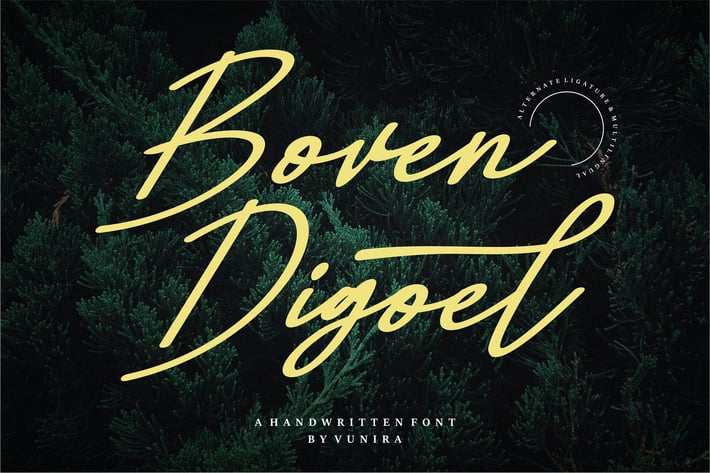
Boven Digoel | A Handwritten Font
Boven Digoel | A Handwritten Font with a calligraphy style, So beautiful on invitation like greeting cards, branding materials, business cards, quotes, posters, and more!